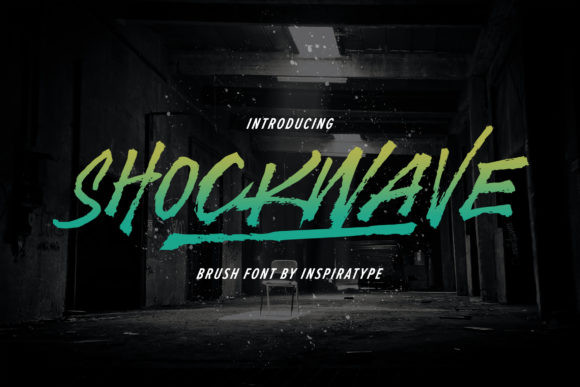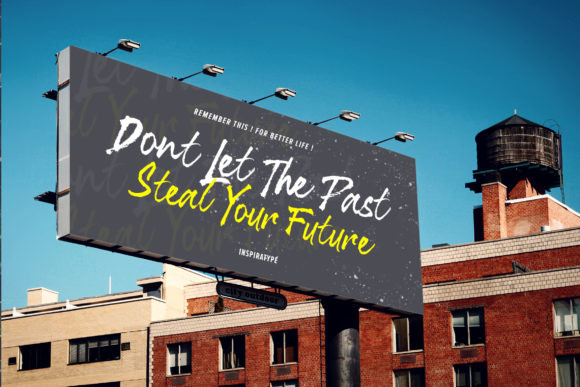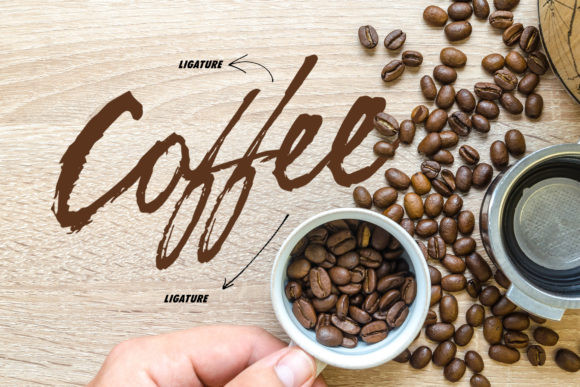
Shockwave Font
Shockwave is a display font made by hand, inspired by classic posters.
This is the perfect font to use in you next designs. Applications can range from t-shirts, posters, logos to anything you can think of.